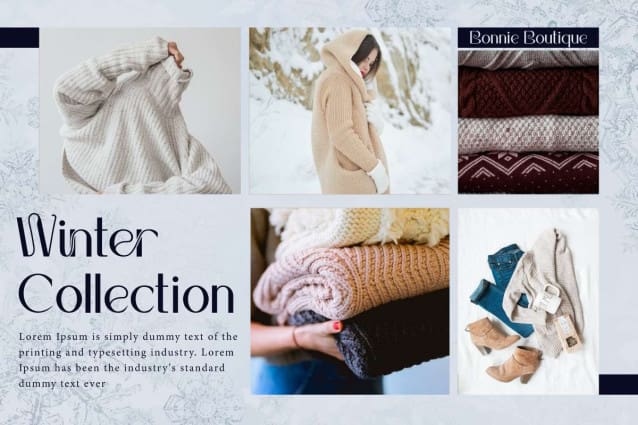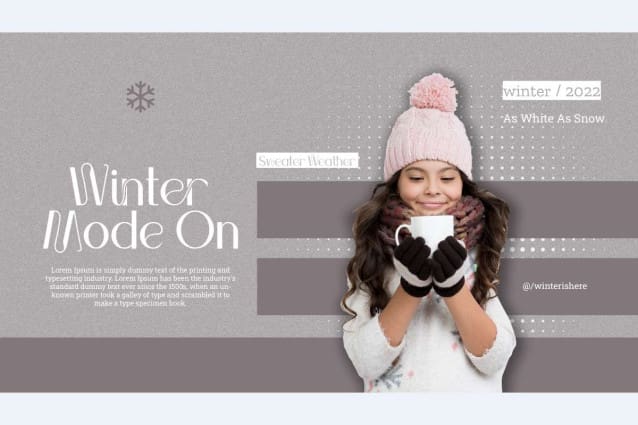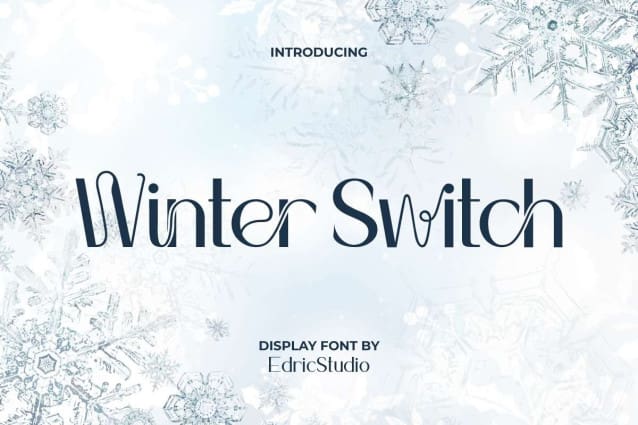
Winter Switch Font
Winter Switch Font is an elegant sans serif display font inspired by the beauty of winter season. This is a unique typeface that has indented lines on some of the characters making it standout and will suit any industry, such as accessories, architect, bakery and cake shop, café, clothing brand, entertainment, event or festival, fashion designer, film, handicraft, hot drink products, jewelry, photography, printing, publishing, restaurant, writer, and many more.
Winter Switch Font comes with full set of Uppercase and Lowercase Basic Characters, Number, a large range of Punctuation, Symbol, and Ligature. It has a stunning characters set, perfectly managed with well spaced and kerning. Winter Switch Font will be able to complement for any project (with extended license) including: billboard, brand logo, brochure, catalogue, cover, greeting card, header, label, packaging design, quotes, screen print, signage, stationary, sticker, title, website, etc.